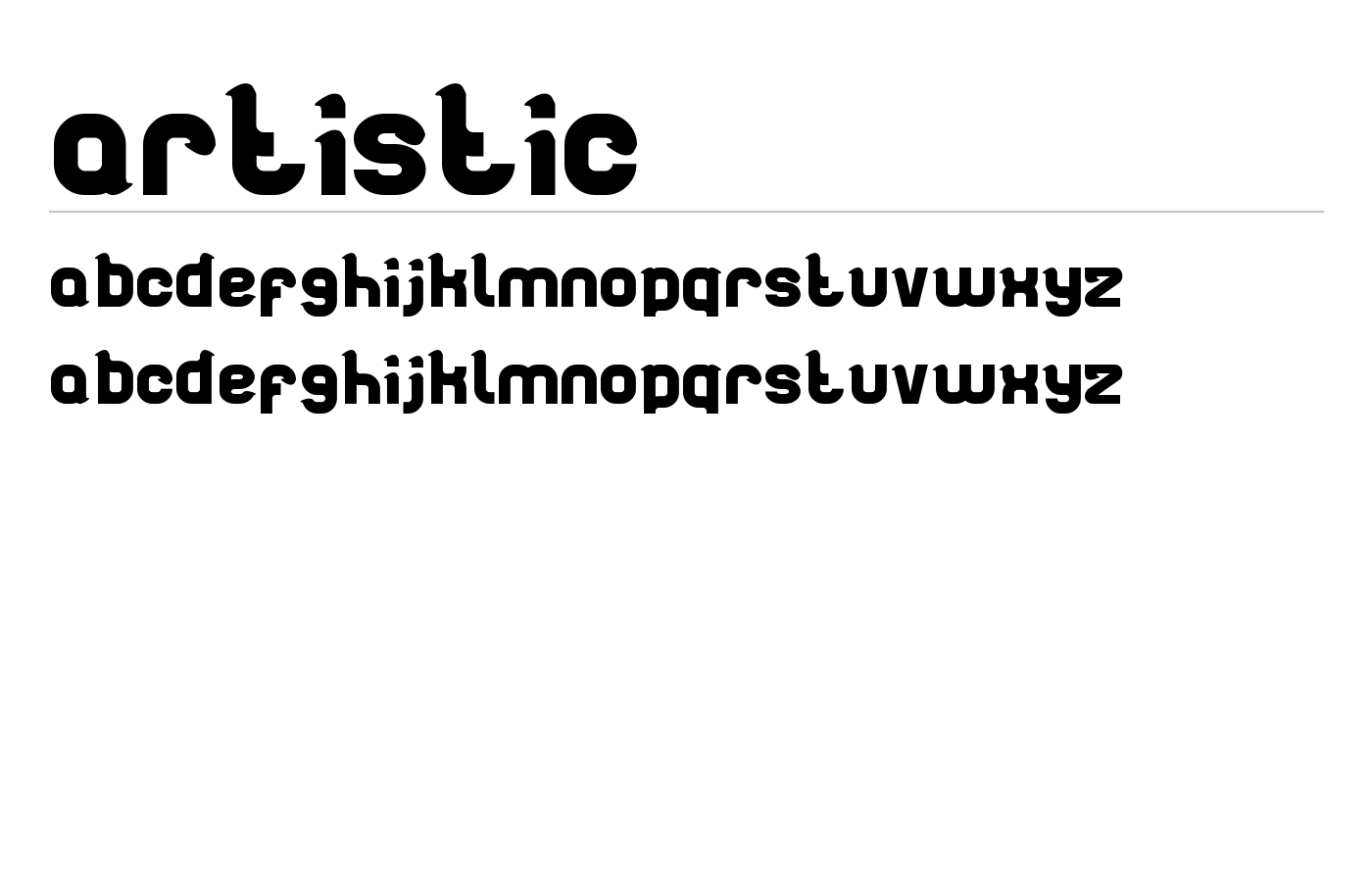
Artistic Font is a bold, playful sans serif typeface with heavy weight and rounded terminals, creating a strong yet friendly presence. Its quirky, slightly condensed letterforms with distinctive stroke cuts give it a unique and artistic feel, perfect for creative branding, headlines, or display uses where personality and impact are desired. This font works well for projects aiming to combine modern style with an approachable, handcrafted vibe.
artistic Font
About artistic Font